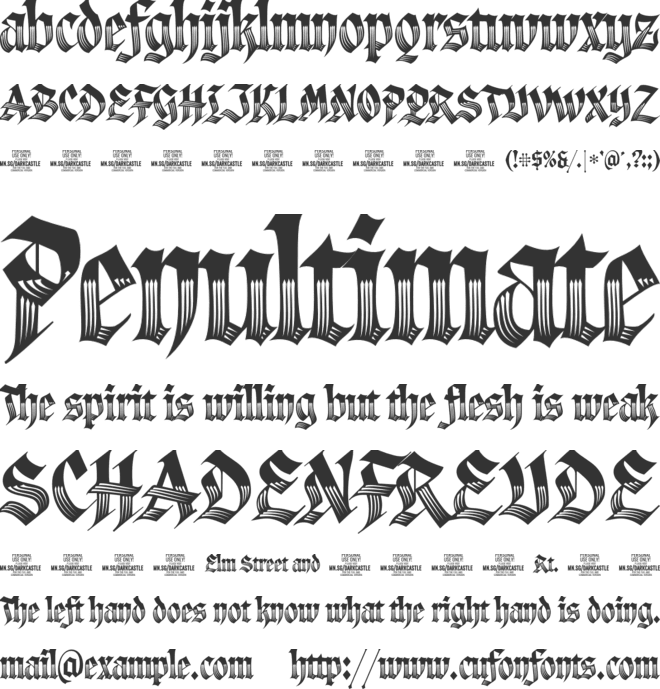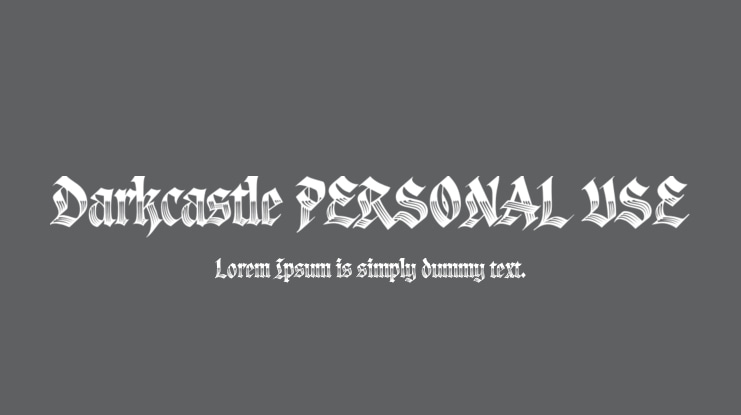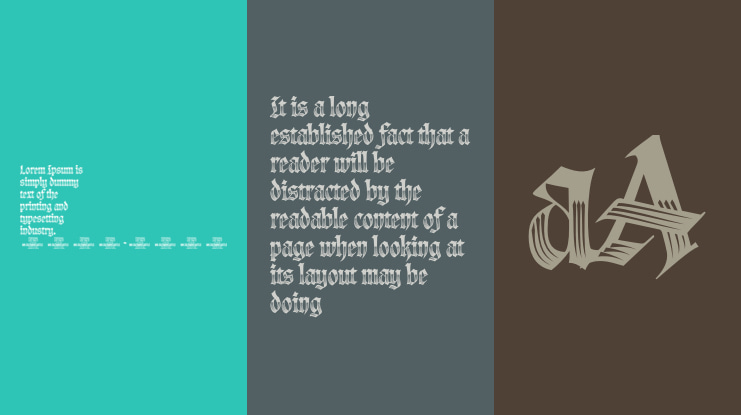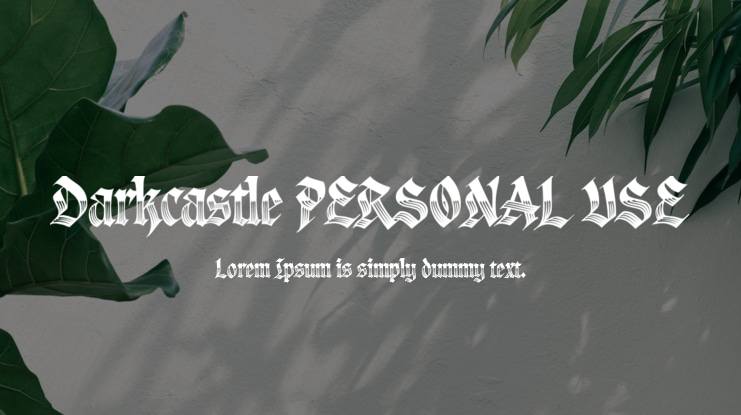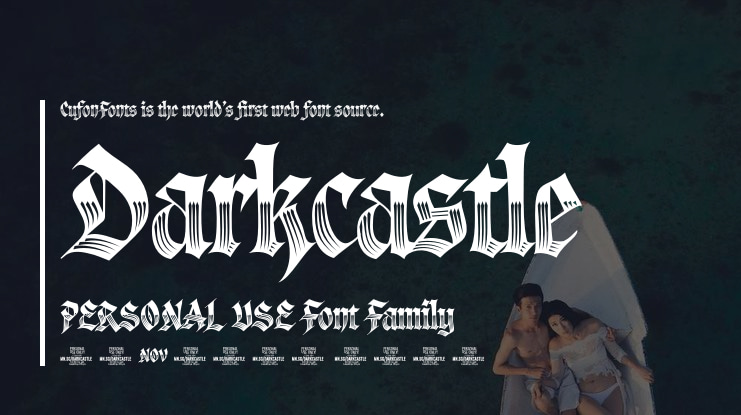
Darkcastle PERSONAL USE Font
Mans Greback
Note: This font is for personal use only! To purchase a commercial license, please visit: http://mn.sg/darkcastle. Darkcastle is a bold blackletter font that conjures the medieval era. Its dramatic letterforms are enhanced with sharp decorative lines, providing a powerful illumination for dark Halloween nights or historical logotypes. For questions, please visit www.mn.sg/faq.